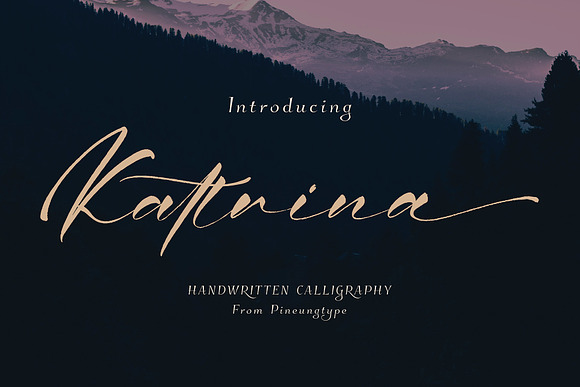
Kattrina Black Friday Font
Kattrina Black Friday Font is perfect for stylish retail campaigns, fashion sale promotions, trendy shopping events, elegant discount advertisements, upscale seasonal sales, boutique marketing materials, sophisticated clearance graphics, premium shopping experiences, chic promotional banners, and fashionable holiday campaigns.
What makes Kattrina Black Friday Font so exciting is its extraordinary ability to combine shopping urgency with sophisticated elegance through letterforms that seem to pulse with both fashionable excitement and irresistible deal-hunting energy. This stylish typeface captures the essence of upscale shopping culture and fashionable consumerism with characters that radiate both shopping sophistication and promotional urgency. The font's chic design elements perfectly balance retail excitement with elegant presentation, creating an indispensable tool that communicates fashionable shopping, stylish savings, and sophisticated retail appeal, making it essential for fashion-forward retailers and upscale brands that want their Black Friday promotions to maintain elegance while driving immediate purchasing action.
Kattrina Black Friday Font comes in multiple font families including Regular, Bold, Light, Chic, Elegant, Sale, Promotional, and Stylish variations. Each family member maintains the core fashionable characteristics while offering different shopping intensity levels and stylistic approaches to suit various upscale retail and promotional design requirements.
The fashionable precision in Kattrina Black Friday Font makes it particularly effective for upscale retail environments and fashion-forward brands where maintaining sophisticated brand image while creating shopping urgency is crucial for attracting discerning shoppers during competitive sales seasons. Its elegant letterforms work exceptionally well across all premium retail applications, from boutique window displays to luxury shopping center advertisements, maintaining consistent fashionable appeal and upscale shopping atmosphere.
Fashion retail professionals recognize how Kattrina Black Friday Font transforms ordinary sale announcements into sophisticated shopping invitations that appeal to style-conscious consumers seeking both fashion and value. The typeface's chic character set includes special fashion symbols, shopping elements, and elegant promotional indicators that enhance the overall upscale shopping atmosphere of any fashion-focused campaign.
For creative professionals serving fashion retailers, upscale boutiques, and sophisticated shopping brands, Kattrina Black Friday Font serves as the perfect foundation for creating memorable promotional experiences that capture the essential qualities of fashionable shopping, sophisticated savings, and elegant retail appeal that define successful luxury retail campaigns connecting with style-conscious consumers who expect both fashion credibility and exceptional value during peak shopping seasons.